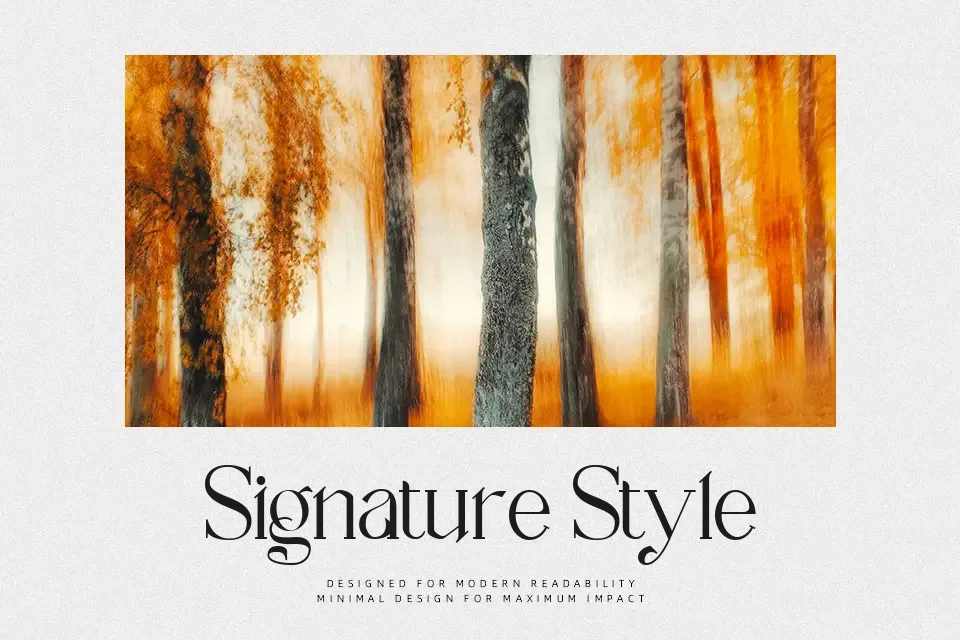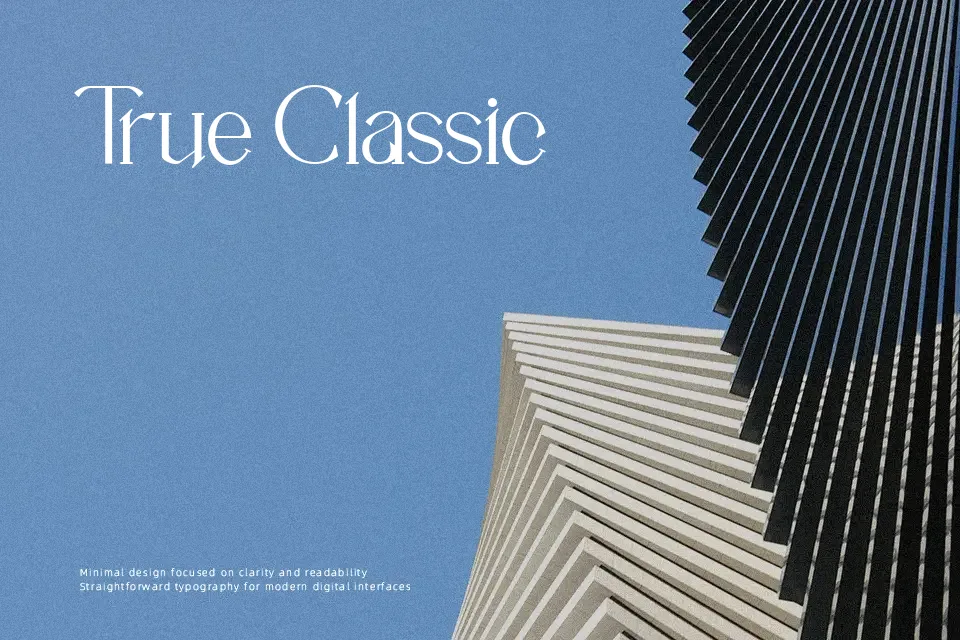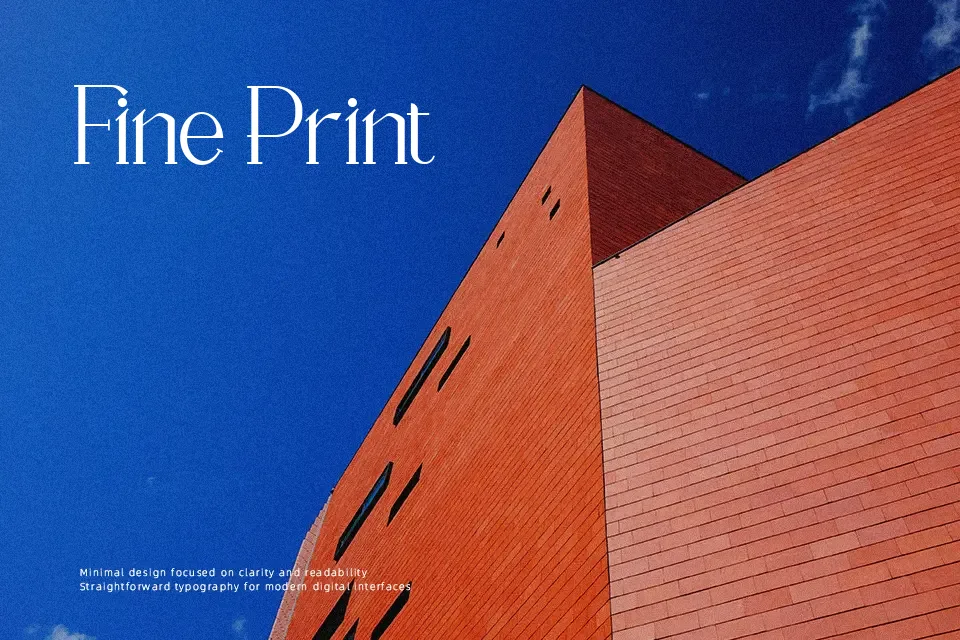
Rosalina Font
Rosalina Font is a high-contrast serif typeface defined by its elegant curves, varying stroke weights, and sleek letterforms. The characters feature delicate serifs that beautifully offset thicker vertical strokes, creating a striking visual rhythm across any layout. Its proportions are carefully balanced, giving the design a graceful presence that commands attention in large display sizes. The generous spacing helps maintain clarity in larger headlines, allowing intricate details to breathe comfortably. This chic style is exceptionally well-suited for cosmetic branding, luxury packaging, and wedding invitations. However, the dramatic stroke contrast makes the letterforms less effective at smaller sizes, noticeably reducing continuous reading comfort. It remains less suitable for dense body text or long paragraphs.
Best For: cosmetic branding, luxury product packaging, wedding invitations, editorial headlines
Not Ideal For: dense editorial layouts, small interface labels, long paragraph text
Perfect for branding, headline, and packaging, with a elegant and decorative style.